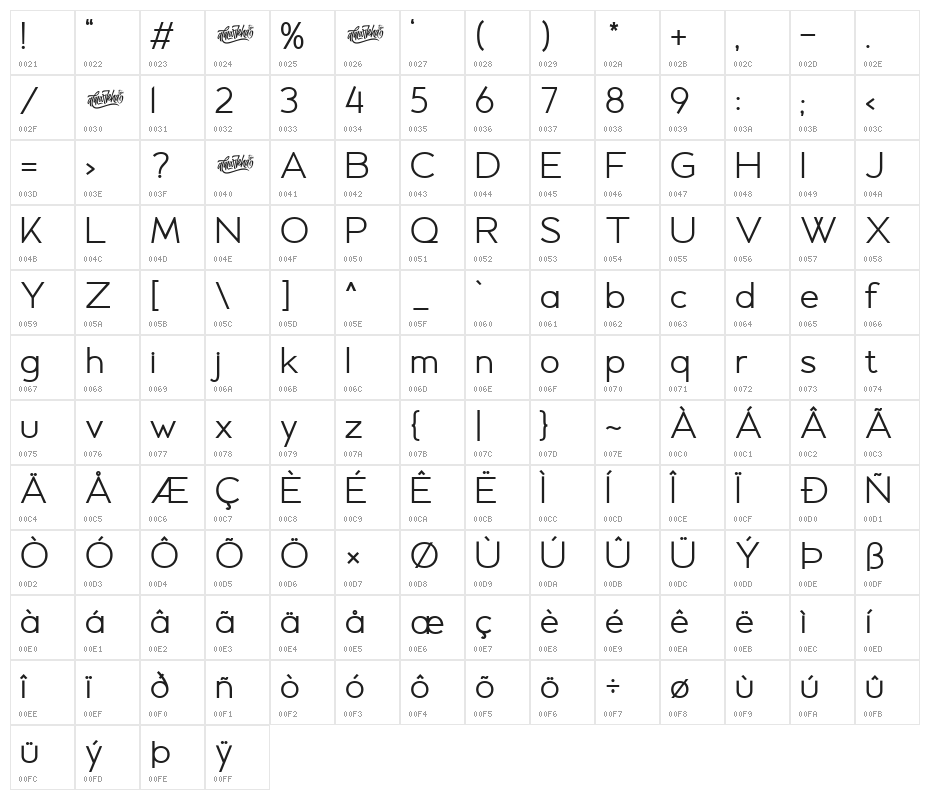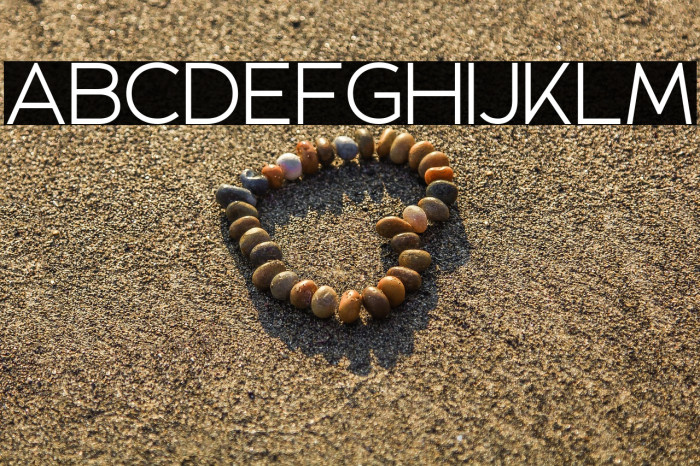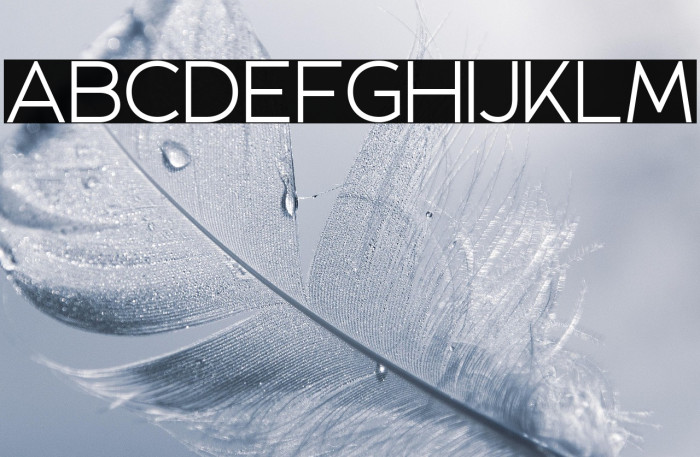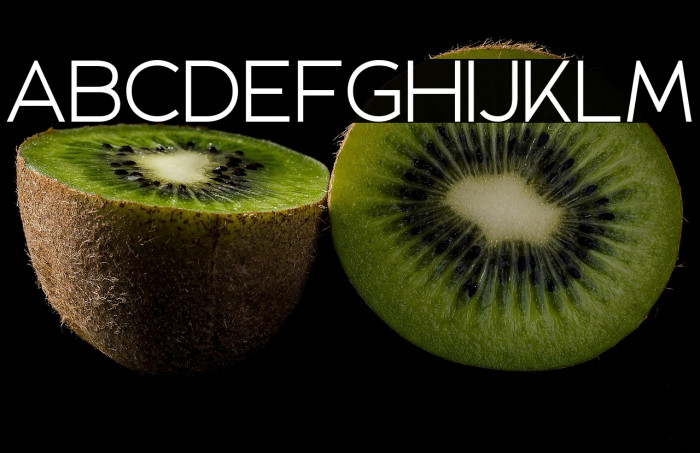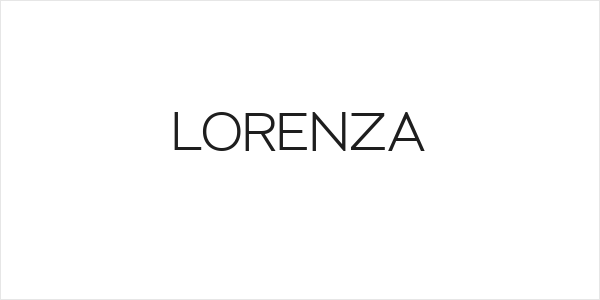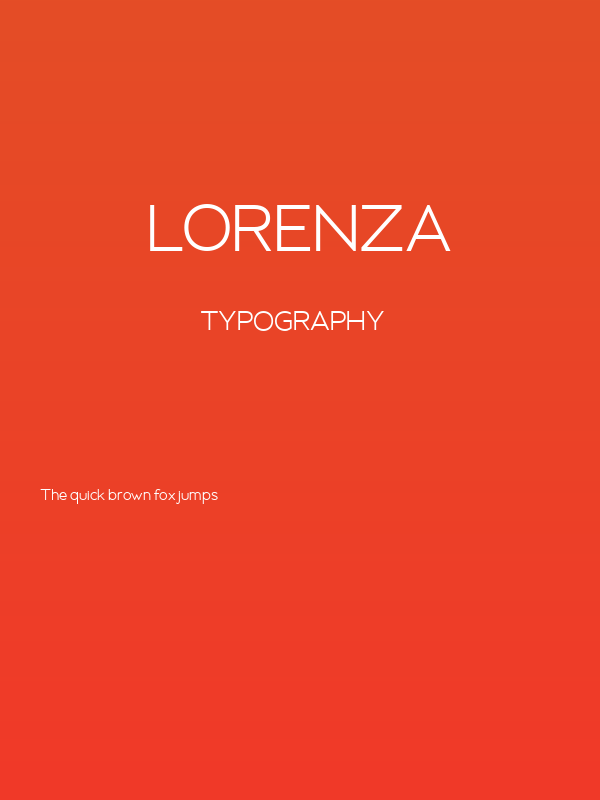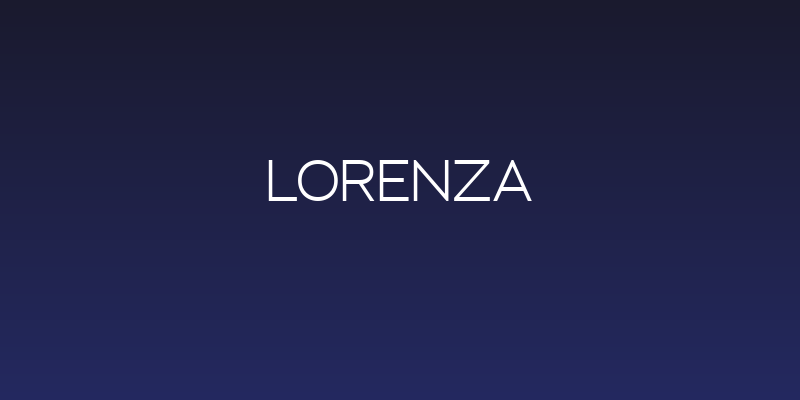
LORENZA Font
LORENZA Description
This font features a clean and modern sans-serif style with a geometric structure. The uppercase letters are uniform and balanced, providing a sense of stability and clarity. The lowercase letters maintain a consistent height and width, enhancing readability. The numerals are straightforward and align well with the overall design, making them suitable for various applications. Special characters are included, offering versatility for different contexts. The font's simplicity and elegance make it ideal for contemporary design projects.
| Proposed Projects | Ideal for branding, web design, corporate materials, and editorial layouts. |